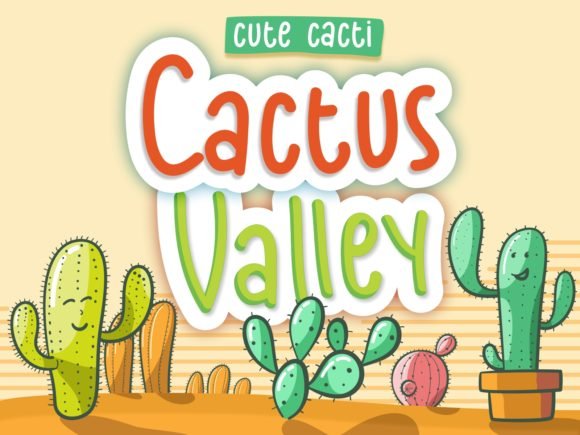
Introduction to Cactus Valley Font
Cactus Valley is a playful handwritten font with cute cacti elements.
It can easily be matched to an incredibly large set of projects, so add it to your creative ideas and notice how it makes them stand out This font is PUA encoded which means you can access all of the glyphs and swashes with ease.
Key Features of Cactus Valley Font
Why Choose Cactus Valley Font?
Cactus Valley Font offers exceptional quality and versatility, making it a valuable addition to your design toolkit. Whether you’re creating for personal projects or commercial use, Cactus Valley Font delivers professional results.